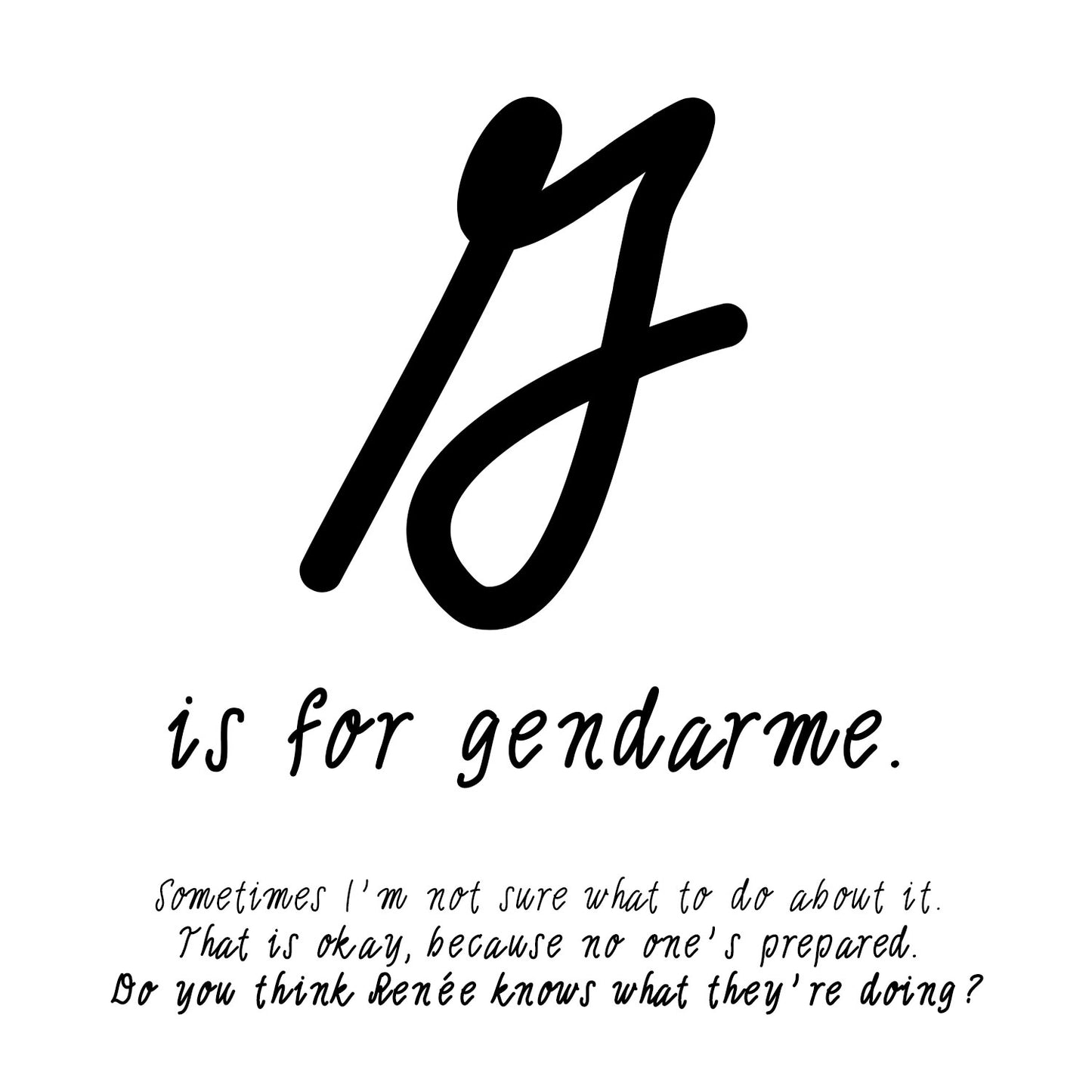
French Fiance
Inspired by a stash of old airmail letters originating in Lyon, a college town in central France, this widely spaced font is halfway between roman and cursive. The family includes three faces (Light, Medium, Bold) that are all fairly thin and embellished with curlicues that have since gone by the wayside.